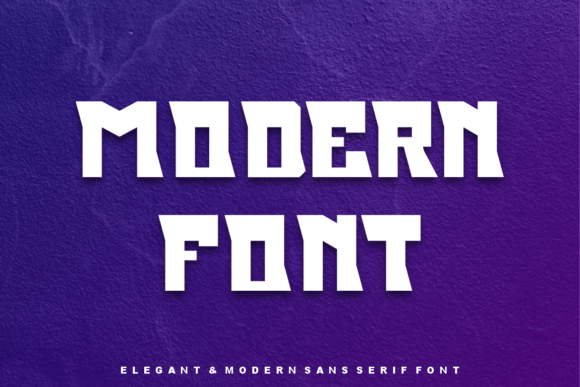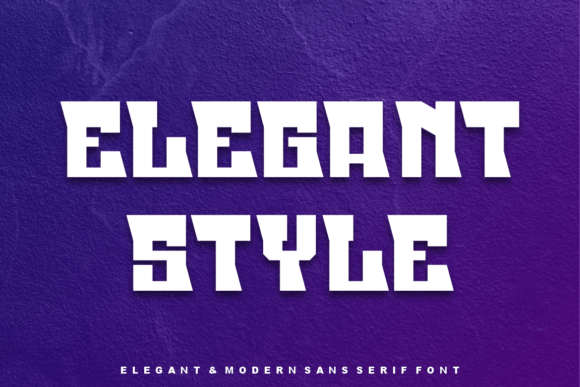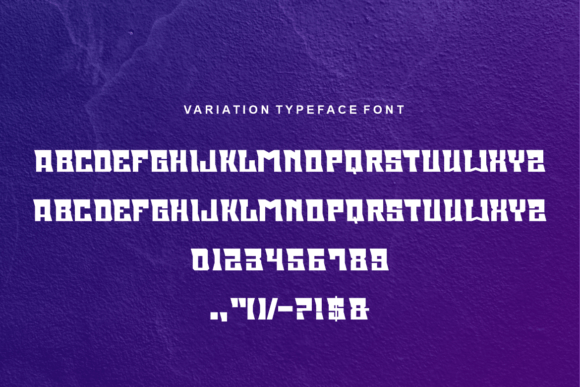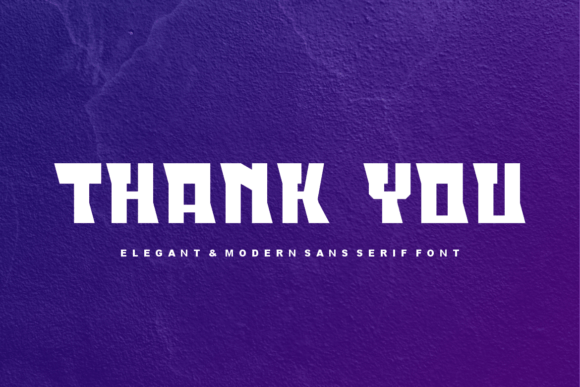
Introduction to Sergeke Font
Have you ever been stuck on a creative project, searching for the perfect font to bring your design to life? I know I have! That’s why I’m excited to share with you a game-changing design resource: the Sergeke Font. This cool and modern display font is sure to elevate your projects and leave a lasting impression.
What makes Sergeke Font stand out is its high-quality design and versatility. Whether you’re working on a digital project or need a font for print materials, Sergeke Font is the perfect choice. Plus, it’s available for free download, making it an accessible design resource for creatives of all levels.
As a designer, you know how valuable it is to have a reliable and stylish font at your disposal. Sergeke Font delivers, with its sleek and modern design that’s sure to add a touch of sophistication to any project. With a transparent background, you can easily layer it with other design elements to create a cohesive look that’s sure to impress.
Key Features of Sergeke Font
- High-quality design resource with a unique, creative style perfect for various projects
- Features a transparent background, allowing for seamless integration with any design
- Designed at a high resolution (300 DPI), ensuring crisp and clear typography
- Available in various font sizes and styles, making it a versatile design resource
- Perfect for creative projects that require a distinctive and eye-catching font
Honest Review: Sergeke Font
I recently stumbled upon the Sergeke Font and I’m excited to share my thoughts with you. As a designer, I’m always on the lookout for high-quality design resources to elevate my creative projects. The Sergeke Font definitely caught my attention, and here’s why.
- ✨ High-quality font design: The Sergeke Font boasts a clean and modern aesthetic that’s perfect for any design project.
- ✨ Transparent background: This feature is a game-changer for designers who need to create seamless backgrounds or overlays.
- ⚠️ Limited character set: The font only includes a limited set of characters, which might not be suitable for projects that require a broader character set.
- ⚠️ Not ideal for complex text: While the font looks great for short text snippets, it might not be the best choice for complex text or body copy.
Overall, I’m impressed with the Sergeke Font and would recommend it to designers who need a high-quality, modern font for their creative projects. Just be aware of its limitations and use it accordingly.
Some common use cases for the Sergeke Font include graphic design, logo creation, and branding. Tips for getting the most out of it include experimenting with different font sizes and colors, and using it in combination with other design elements to create a unique look.